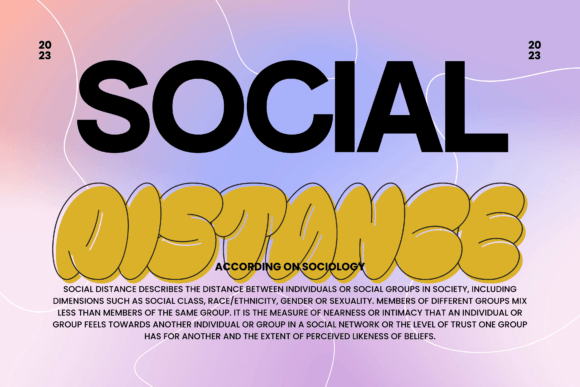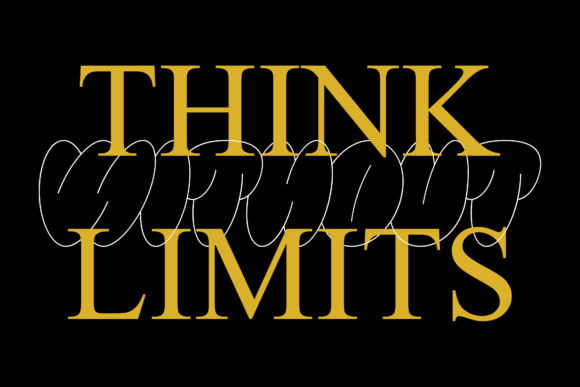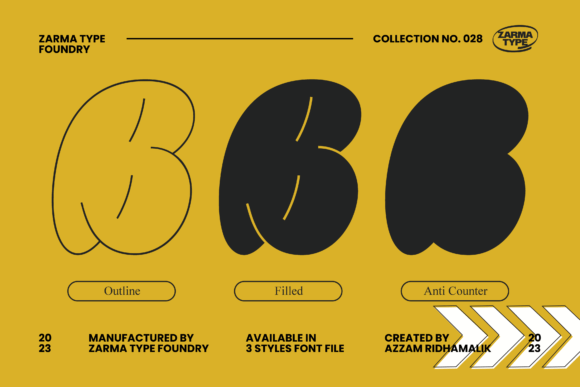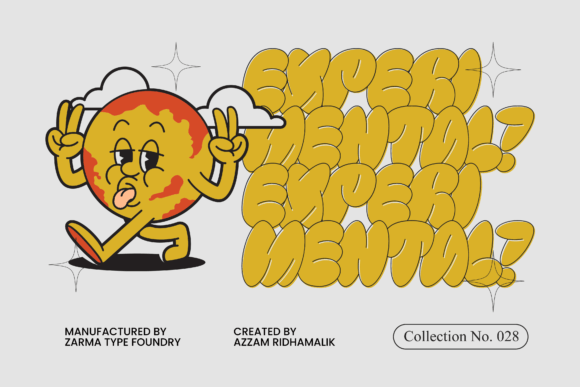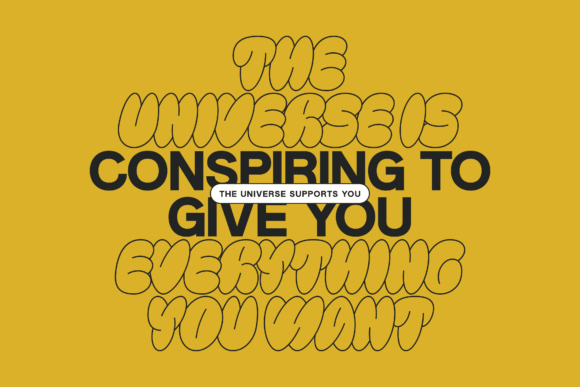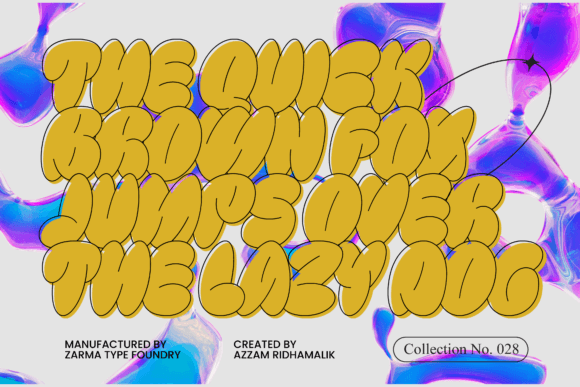
Get Ready to Pop: Introducing the Bulbis Font
Have you ever stared at a blank canvas, waiting for that spark of creativity to strike? It’s a moment we’ve all experienced as designers, when the possibilities seem endless and the pressure to deliver is high. But what if that spark was ignited by a font that’s as bold as it is beautiful?
Enter the Bulbis Font, a game-changing addition to our collection that’s set to take your designs to the next level. This vibrant bubble font is inspired by the raw energy of graffiti and street art, with a modern twist that’s sure to turn heads. Whether you’re working on a logo, branding, or social media graphics, the Bulbis Font is the perfect tool to give your designs a fresh and modern edge.
With its versatility and eye-catching appearance, the Bulbis Font is a valuable asset for any designer looking to make a lasting impression. So why settle for ordinary when you can pop with the extraordinary Bulbis Font?
Bulbis Font Key Features
- Unique Characteristics: The font features a distinctive, hand-drawn style with organic shapes and subtle flair, making it perfect for creative and artistic projects.
- Font Pairing: Bulbis Font pairs well with other fonts that have a similar, hand-drawn feel, such as Brush Script or Pacifico, making it easy to create visually appealing typography.
Bulbis Font Review
At first glance, Bulbis Font seems like an interesting and unique addition to any design project. ✨ I appreciate its creative and playful vibe, making it perfect for projects that need a touch of whimsy. The font is quite versatile, and I can see it working well in various contexts, from branding to advertising.
Here are some specific aspects where Bulbis Font excels:
- ✨ Its unique letterforms and shapes add a distinctive touch to any design.
- ✨ Bulbis Font is highly customizable, allowing designers to adjust its weight, spacing, and other parameters to suit their needs.
- ✨ It’s available in a wide range of languages, making it a great choice for international projects.
- ⚠️ The font might be too playful or whimsical for more serious or professional projects.
- ⚠️ Some users may find the font’s uniqueness a bit overwhelming or difficult to read.
- ⚠️ The font’s weight and spacing can be a bit inconsistent in certain contexts.
Overall, I think Bulbis Font is a great addition to any designer’s toolkit. While it may not be suitable for every project, its unique charm and versatility make it a great choice for designers looking to add some personality to their work.
Tips for Getting the Most Out of Bulbis Font
To get the most out of the Bulbis font, follow these tips:
- Use it in combination with bold or italic text for added emphasis.
- Experiment with different font sizes and line heights for a unique look.
- Pair it with other modern fonts for a sleek and professional design.
Common Use Cases for Bulbis Font
The Bulbis font is
Is Bulbis suitable for print or digital use?
Bulbis is designed to be versatile and suitable for both print and digital use. It features a high level of detail and smooth lines, making it ideal for various applications such as typography, branding, and editorial design.